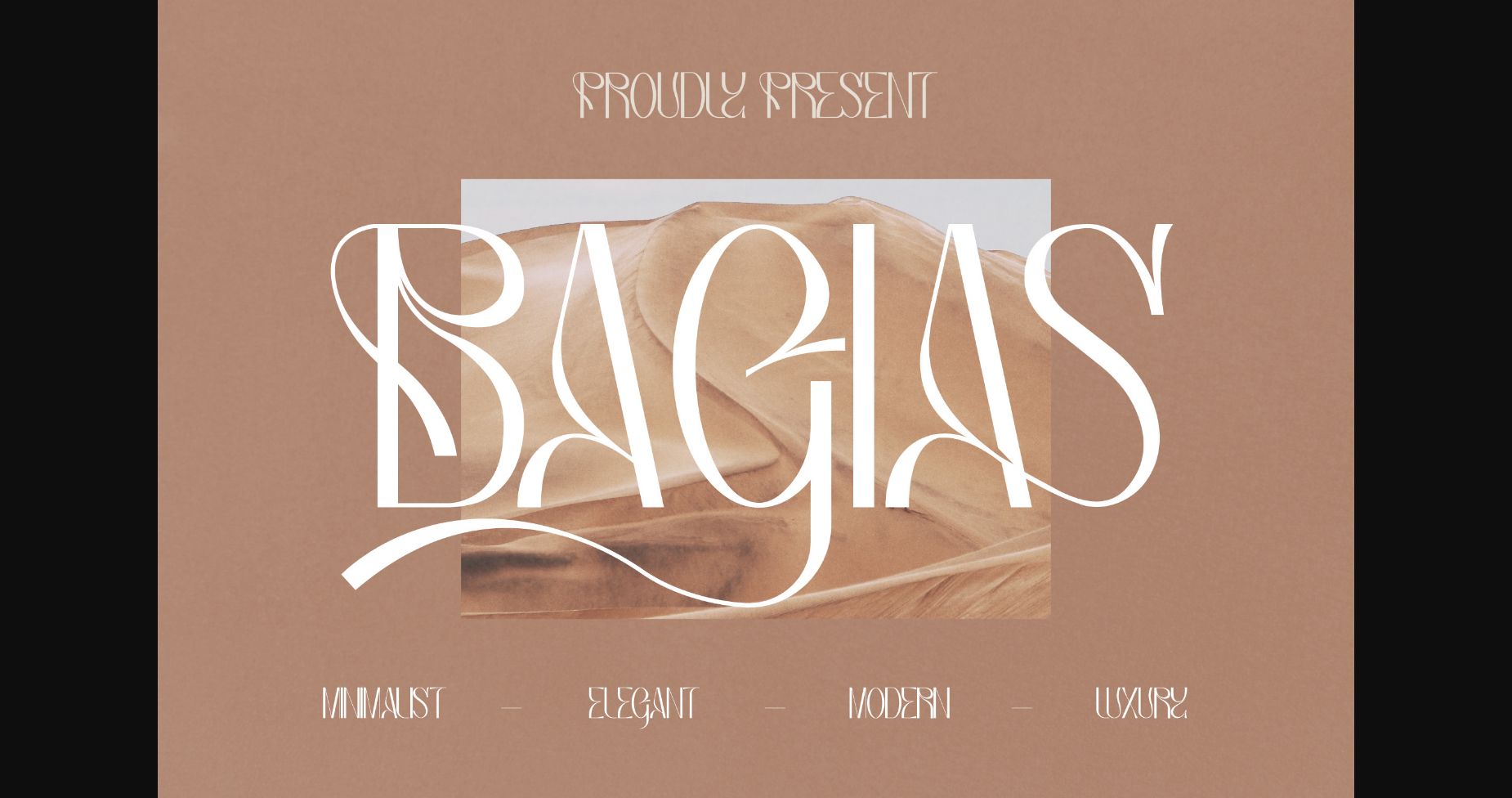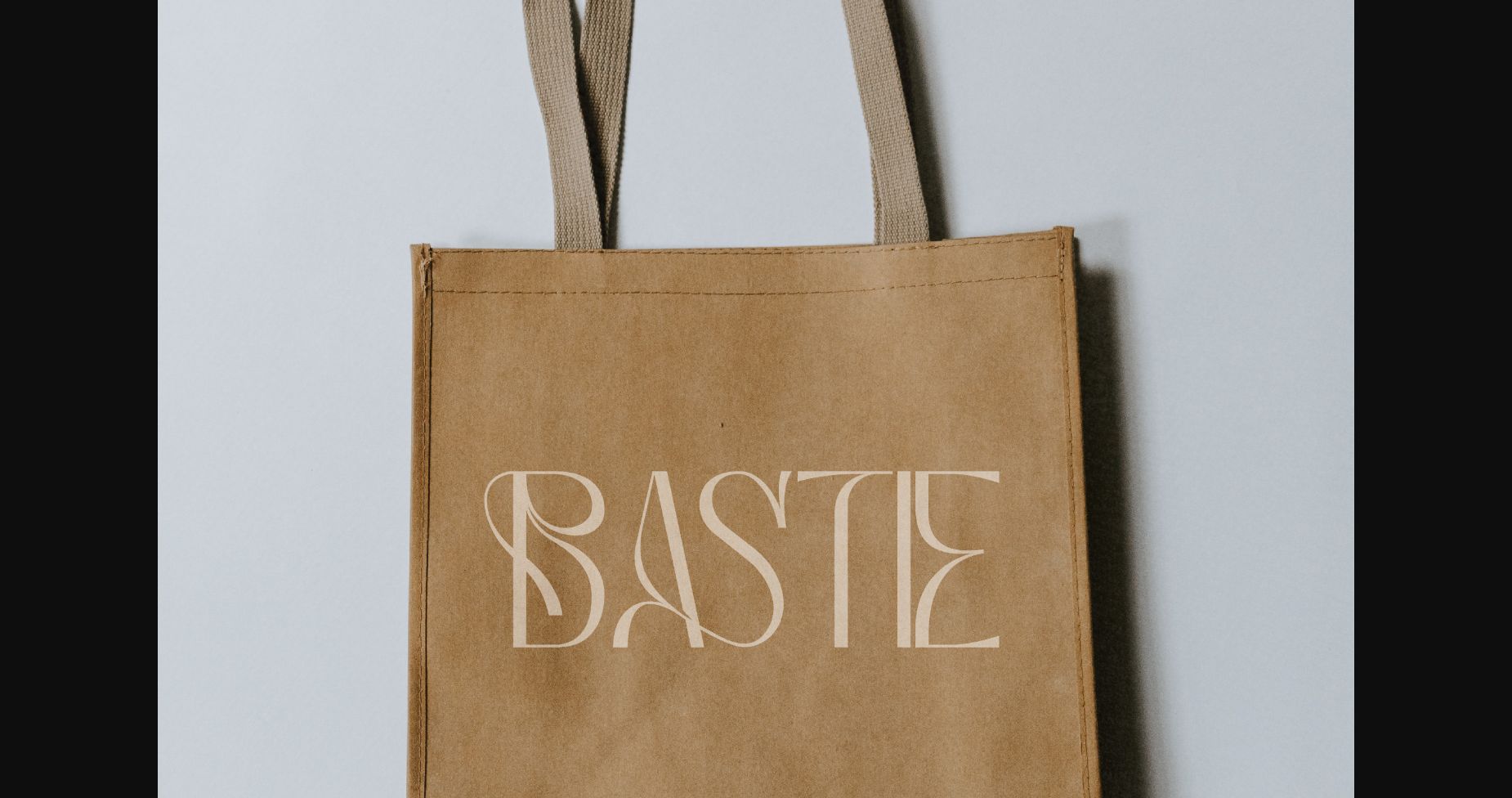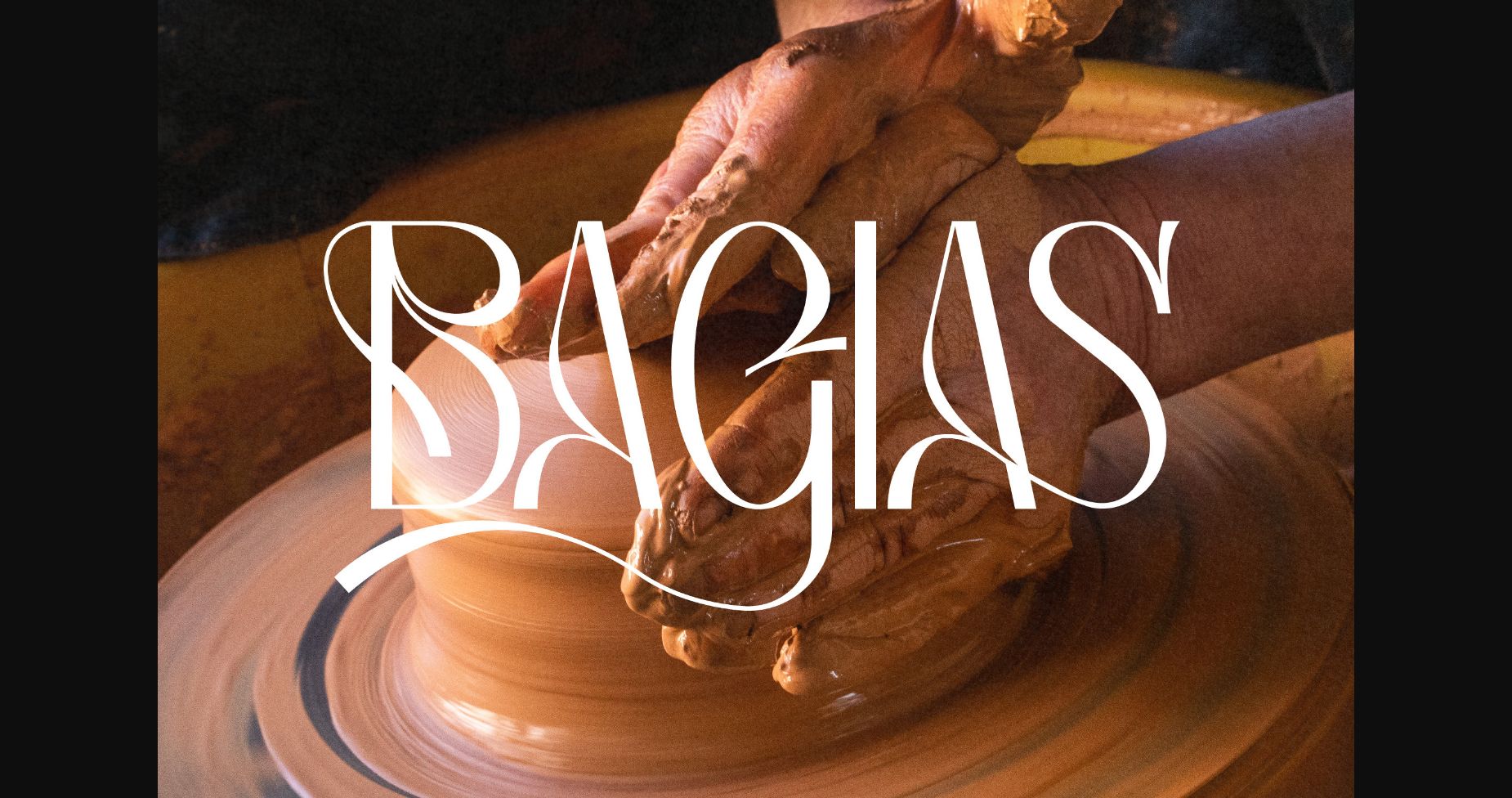
About Bagias Font
Bagias is a modern and classic sans serif font that features its own unique look.
This typeface is perfect for elegant & luxurious logos, book or movie title designs, fashion brands, magazine covers, clothes, lettering, quotes, and so much more.